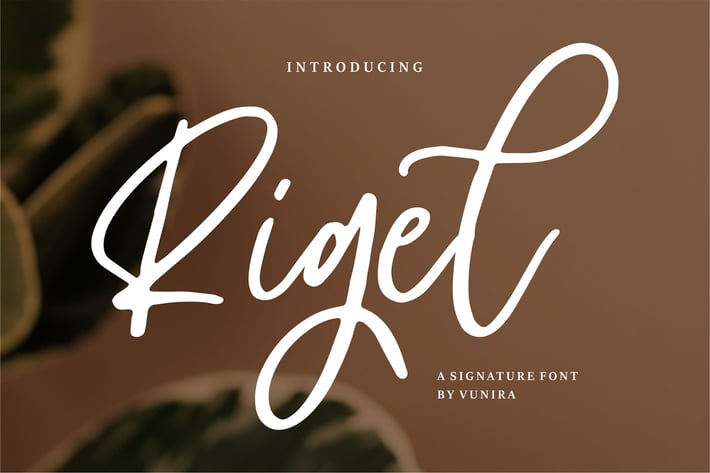
Rigel | A Signature Font
Rigel | A Signature Font with a calligraphy style, So beautiful on invitation like greeting cards, branding materials, business cards, quotes, posters, and more!